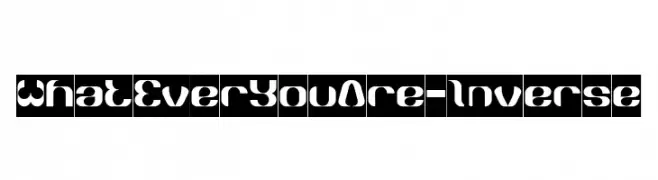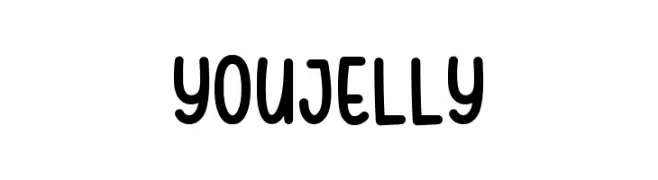
A playful, vintage-inspired font with a hand-drawn look and varying stroke widths.
A bold, playful font with circular, notched characters.
A playful, bold, and rounded font with unique cutout designs.
A geometric, modern font with clean lines and uniform stroke width.
A playful, bold handwritten font with thick, rounded strokes.
A bold, blocky font with tight spacing and a modern, impactful style.
A geometric, hexagonal, pixelated font with consistent stroke thickness.
A bold, playful handwritten font with a casual and friendly style.
A bold, angular font with a geometric and edgy design.
A playful, informal handwritten font with uneven letterforms.
A bold, textured font with a distressed, hand-drawn appearance.
A playful, cartoonish decorative font made of illustrated faces and characters.
Cartoon character-based decorative font with unique illustrations for each glyph.
A bold, geometric font with sharp angles and strong visual impact.
A bold, italicized font with a 3D outline and shadow effect.
A playful, casual handwritten font with irregular strokes and a friendly appearance.
A whimsical, hand-drawn font with fluid, irregular strokes and artistic flair.
A lively and elegant script font with flowing, cursive letterforms.
An eclectic display font made from assembled object photographs.
A futuristic, geometric font with a double-line structure and consistent stroke width.
An elegant, flowing script font with interconnected characters and ornate uppercase letters.
A playful, handwritten font with bold, rounded characters.
A bold, decorative font with a hand-drawn, sketch-like appearance.
A bold, distressed font with a vintage, grunge aesthetic.